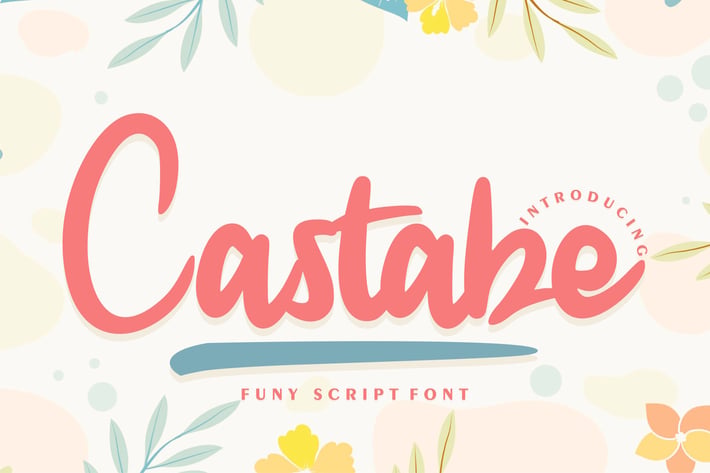
Castabe | Funy Script Font
Castabe | Funy Script Font with a calligraphy style, So beautiful on invitation like greeting cards, branding materials, business cards, quotes, posters, and more!